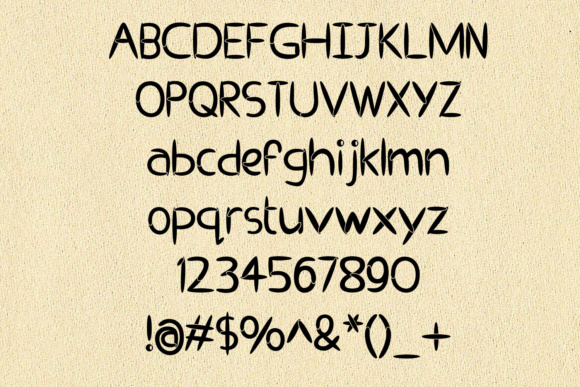
Introduction to EP Pipes Font Font
Fonts play a crucial role in design, and the EP Pipes Font font is a typeface that brings both character and versatility to any project. Whether you’re working on a branding project, a website, or a print design, the EP Pipes Font font offers a unique style that can elevate your work.
EP Pipes is a beautiful typeface which can be used for various purposes such as: wedding cards, quotes, headings, blogs, logos, invitations and much more.
EP Pipes is a beautiful typeface which can be used for various purposes such as: wedding cards, quotes, headings, blogs, logos, invitations and much more!
Why Choose EP Pipes Font Font?
The EP Pipes Font font is more than just a typeface – it’s a design tool that helps you communicate your message with style and clarity. Its unique character set and versatile design make it suitable for a wide range of applications, from elegant invitations to bold headlines.
With its carefully crafted letterforms and balanced proportions, the EP Pipes Font font ensures readability and visual appeal across all mediums.
What makes EP Pipes Font font special?
The EP Pipes Font font stands out with its unique design, exceptional readability, and versatility across various design applications.